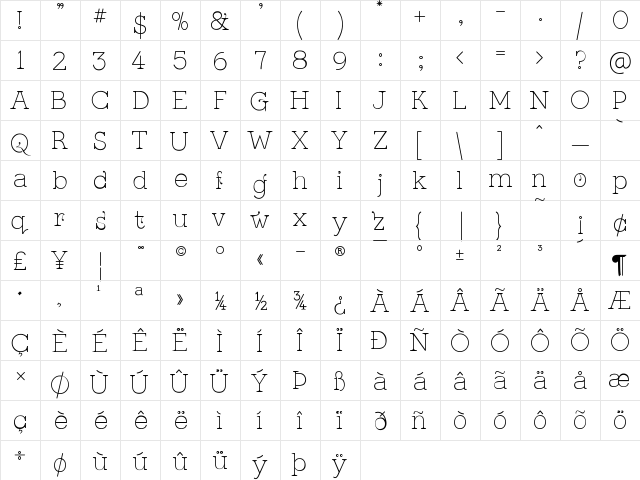
Kingthings Serifique Ultralight Light
| Designer | Kevin King, Exeter, England 2008 |
Design Context for Kingthings Serifique Ultralight Typeface
Kingthings Serifique Ultralight brings classic typographic sensibility to the table — its serifs and measured letterforms reflect centuries of print heritage. Its slender proportions lend an understated elegance to any composition.
Pro Tip: Set Kingthings Serifique Ultralight at slightly larger body copy sizes than you would a regular-weight serif to compensate for its delicate stroke contrast.